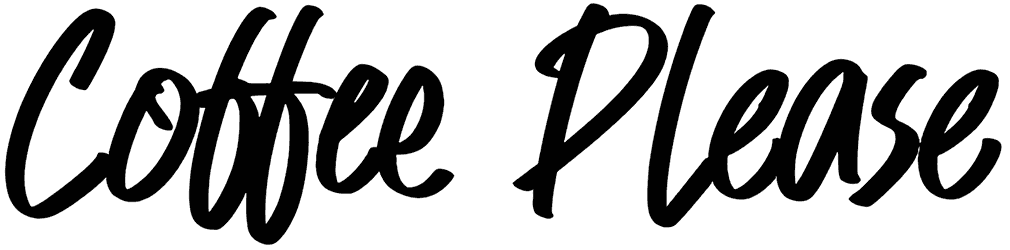
Coffee Please Font
If your design calls for a handwritten look, like in invitations or letters, then the Coffee Please font is the perfect casual handwritten one for you. You can find some numerical characters in this natural coffee font, but that doesn’t make it any less of a valuable tool. It’s free to grab from RB’s extensive font library.